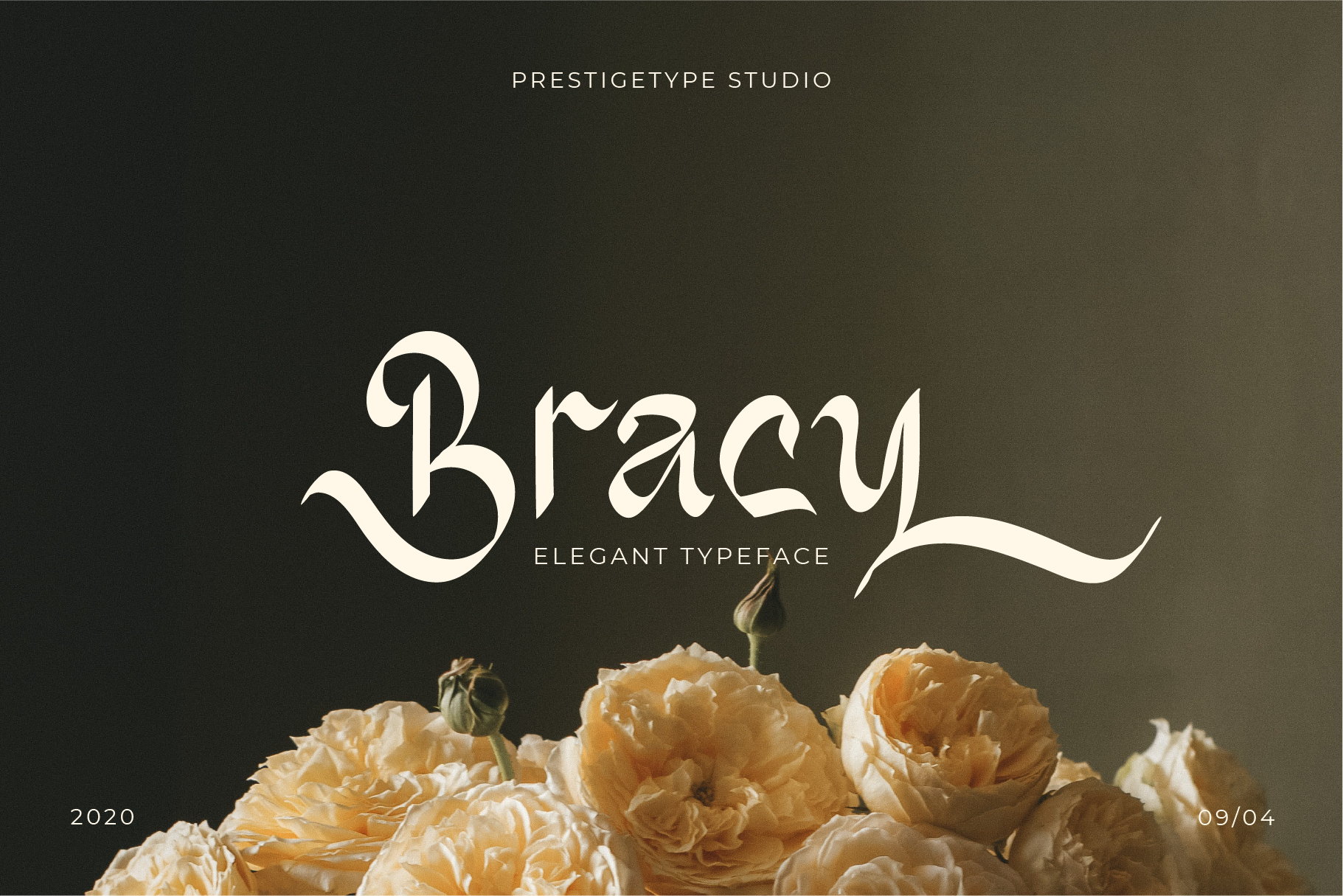
Bracy - Modern Elegant Font
Bracy is an elegant display font with a unique artistic touch in every glyph. Bracy is perfectly suitable for display use such as elegant logos, brand, headlines, business cards, titles, visual identities, covers, labels, fashion industry, social media, advertising purposes, or any display use.